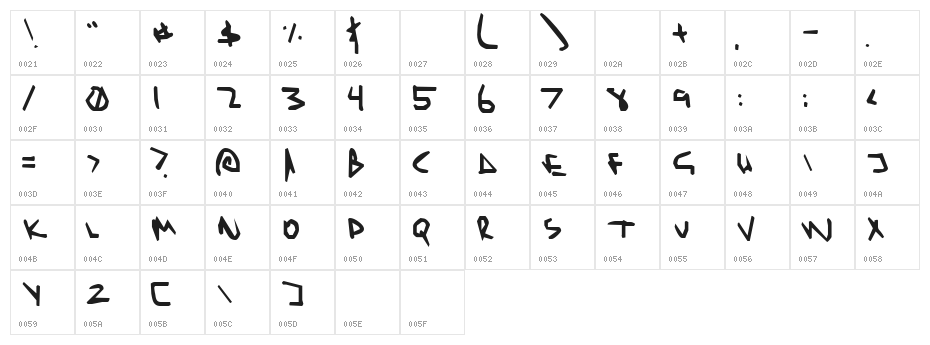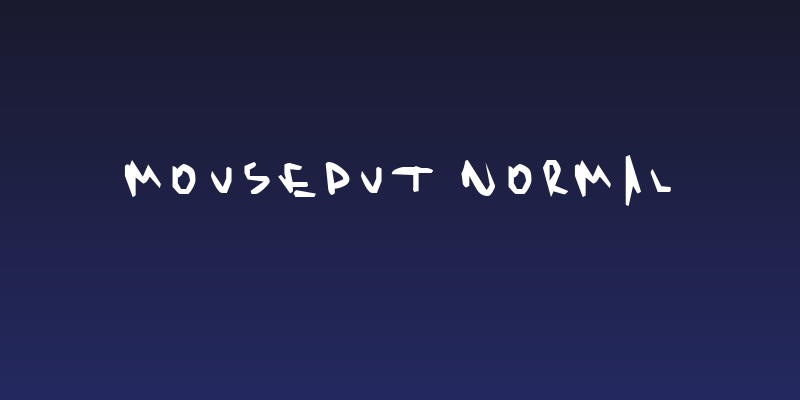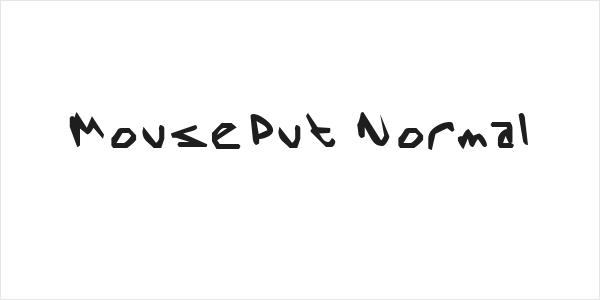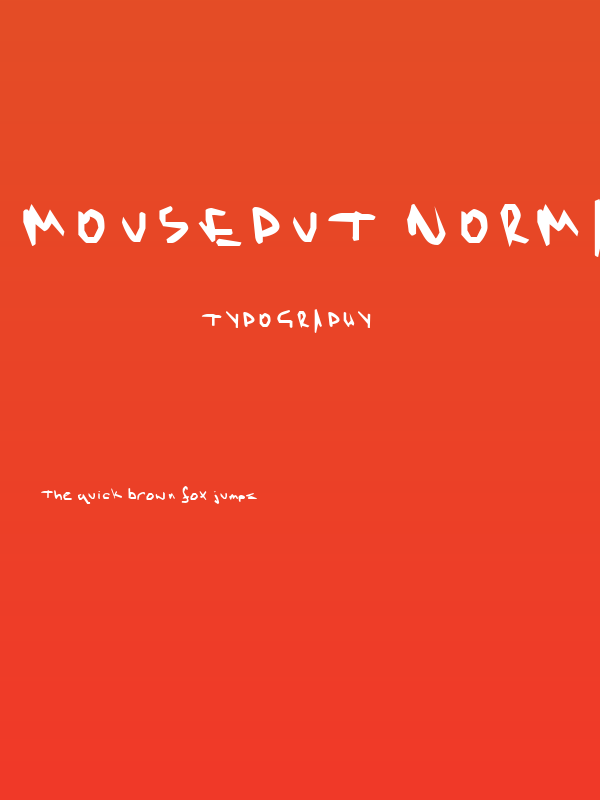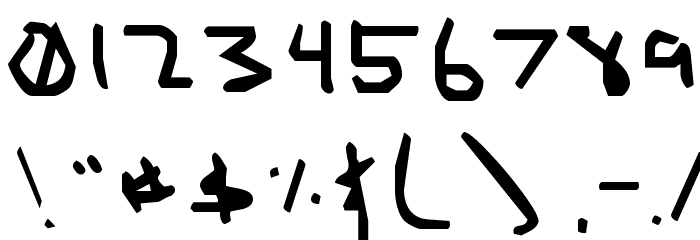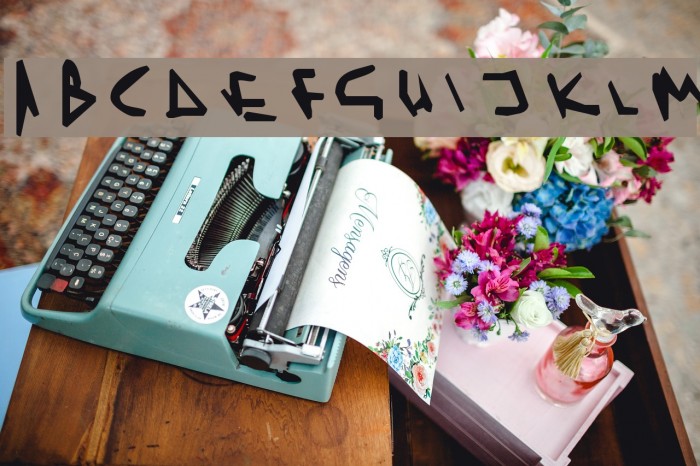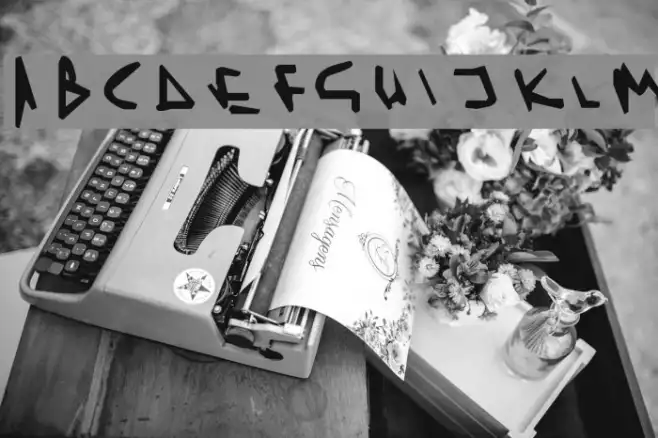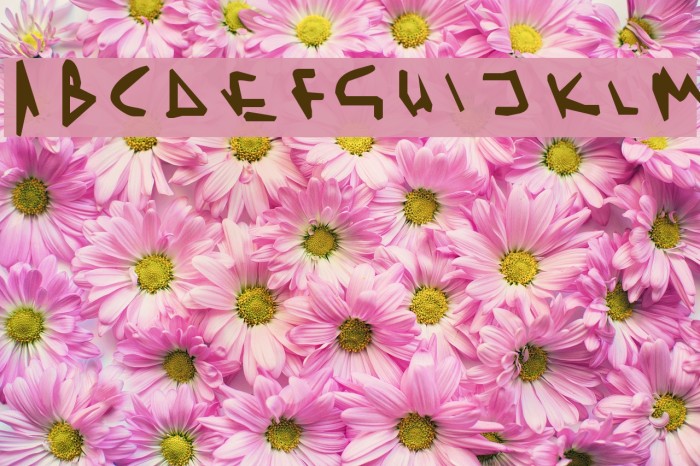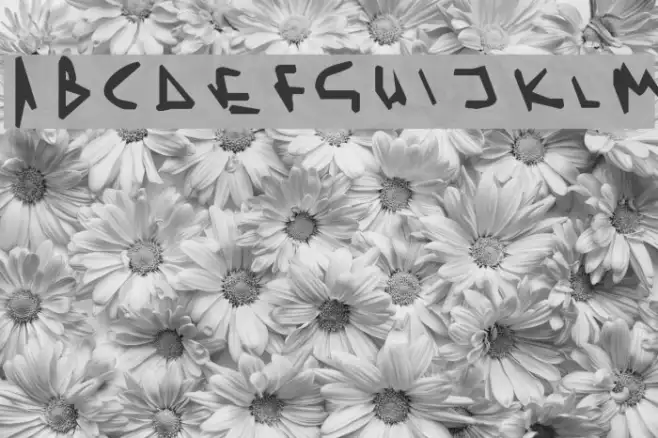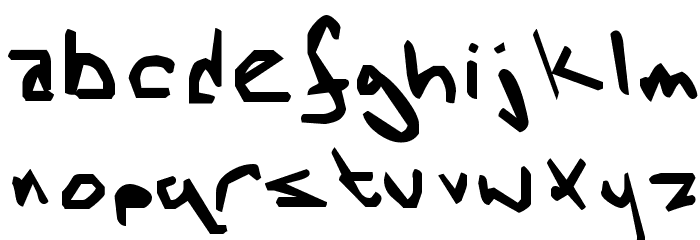
MousePut Normal Font
MousePut Normal Description
This font exhibits a playful and informal style, characterized by its hand-drawn appearance. The letters are uneven and slightly irregular, giving it a casual and spontaneous feel. The strokes are bold and varied in thickness, adding to the dynamic and energetic look. The uppercase and lowercase letters maintain a consistent style, with quirky angles and unique shapes. Numbers and special characters follow the same playful design, making the font suitable for creative and informal projects.
| Proposed Projects | Ideal for children's books, comic strips, casual posters, and creative branding. |